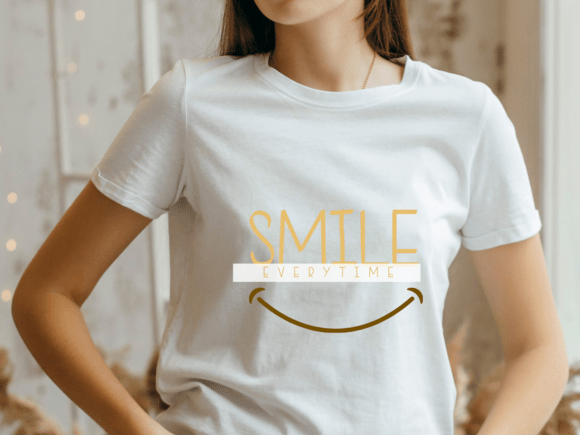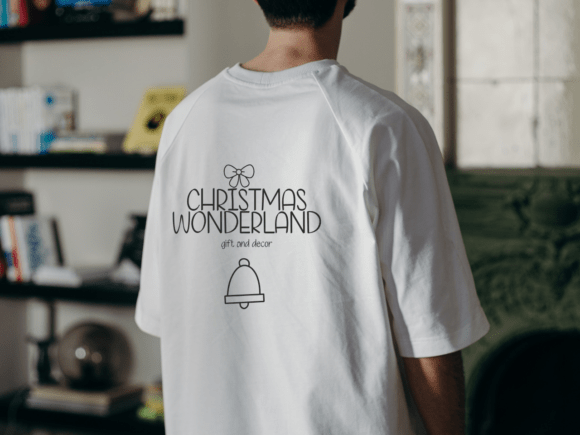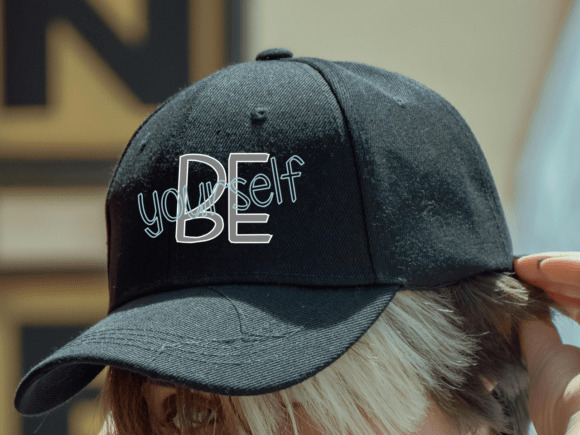
Introduction to Prancer Font
Do you ever find yourself staring at a blank page, waiting for inspiration to strike? For designers, this moment can be both thrilling and daunting. As you search for the perfect font to bring your creative project to life, you begin to envision the possibilities. That’s when you stumble upon it – the Prancer Font. This distinctive and high-quality typeface is more than just letters; it’s a design resource that can elevate your work to new heights.
With its unique identity and versatility, Prancer Font is an artistically intriguing addition to any design arsenal. Whether you’re a seasoned designer or a typography enthusiast, this font offers a range of variations to suit your needs. Plus, with a free download available, you can experiment with Prancer Font on your next creative project, from business logos to handwritten notes, and see the beauty of typography shine through.
As you delve into the world of Prancer Font, you’ll discover a design resource that’s not only visually stunning but also incredibly valuable. With its transparent background and high-quality design, Prancer Font is the perfect companion for any creative journey. So, why wait? Explore the possibilities of Prancer Font today and unleash your creativity like never before.
Key Features of Prancer Font
- High-quality design with a transparent background, making it ideal for creative projects that require a clean and minimalist look.
- Unique, modern font style with a playful touch, perfect for adding a touch of whimsy to creative projects.
- Designed to be highly legible, making it an excellent choice for body text, headings, and titles in creative projects.
Honest Review: Prancer Font
One of the things that works well with the Prancer Font is its versatility. It’s perfect for a wide range of creative projects, from logos to digital art. The font is also highly customizable, making it a great choice for designers who like to get creative with their designs.
Here are some of the features that I love about the Prancer Font:
- High-quality design with a transparent background
- Perfect for logos, digital art, and other creative projects
- Highly customizable, with a wide range of styles and formats
One of the limitations of the Prancer Font is that it may not be suitable for all types of designs. For example, it may not be the best choice for formal documents or other projects where a more traditional font is required.
Prancer Font
The Prancer Font is a high-quality, free download that can be a valuable design resource for any creative project. With its unique style and transparent background, it’s perfect for adding a touch of elegance to your designs.
Tips for Getting the Most Out of Prancer Font
Use Prancer Font in combination with other design elements to create a cohesive and stylish look. Experiment with different font sizes, colors, and styles to find the perfect combination for your project.
The Prancer Font is perfect for any creative project that requires a touch of elegance and sophistication. Use it for wedding invitations, business cards, or even social media graphics to add a unique and stylish touch.